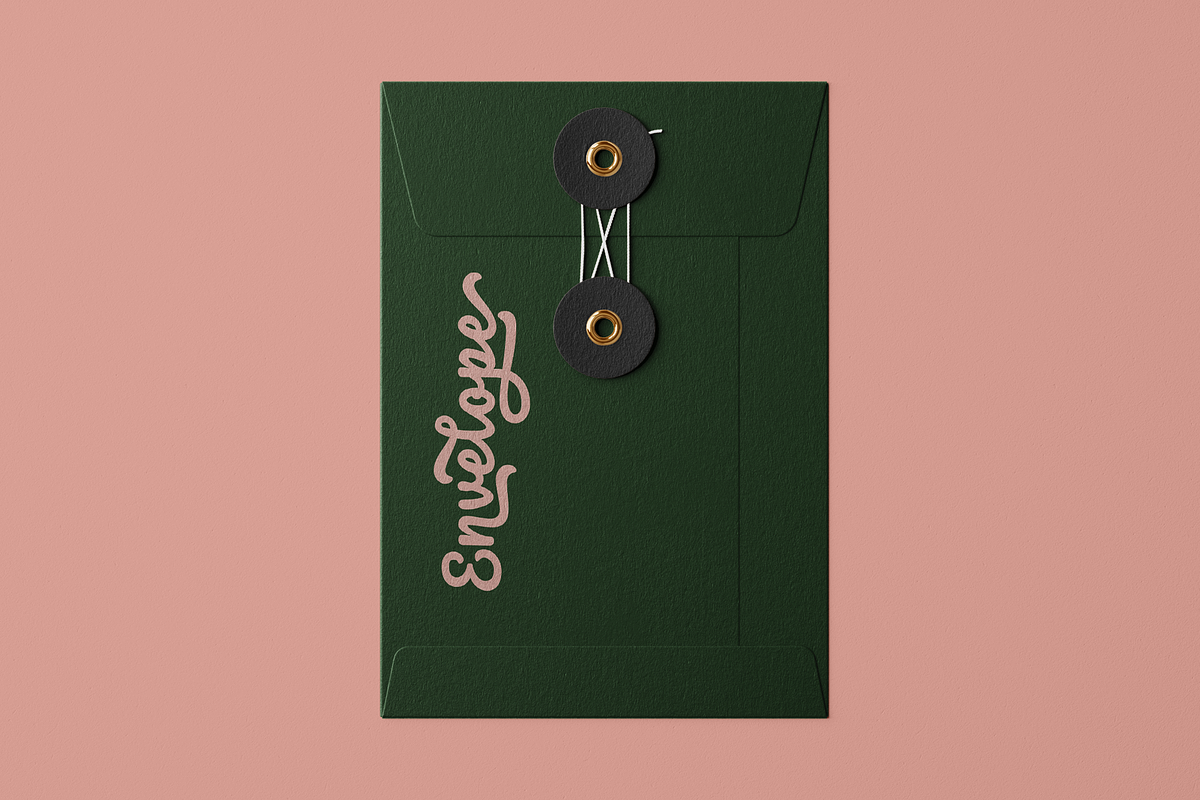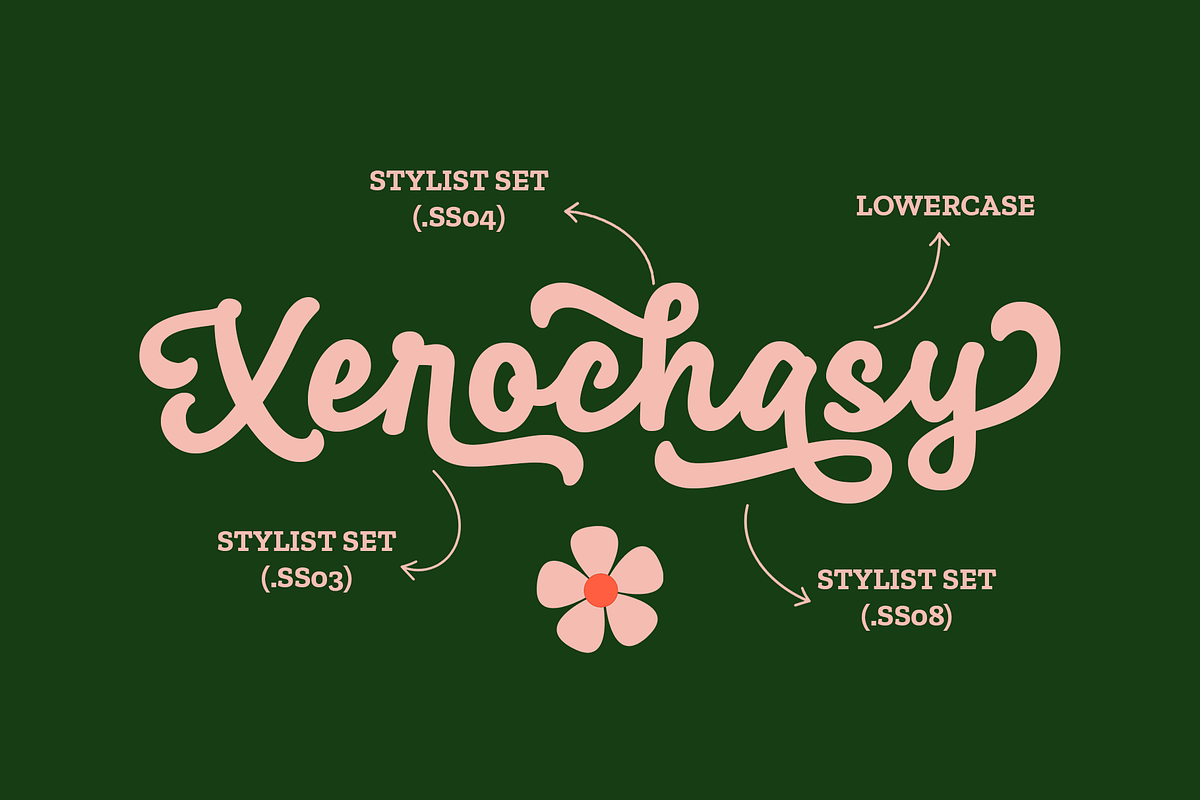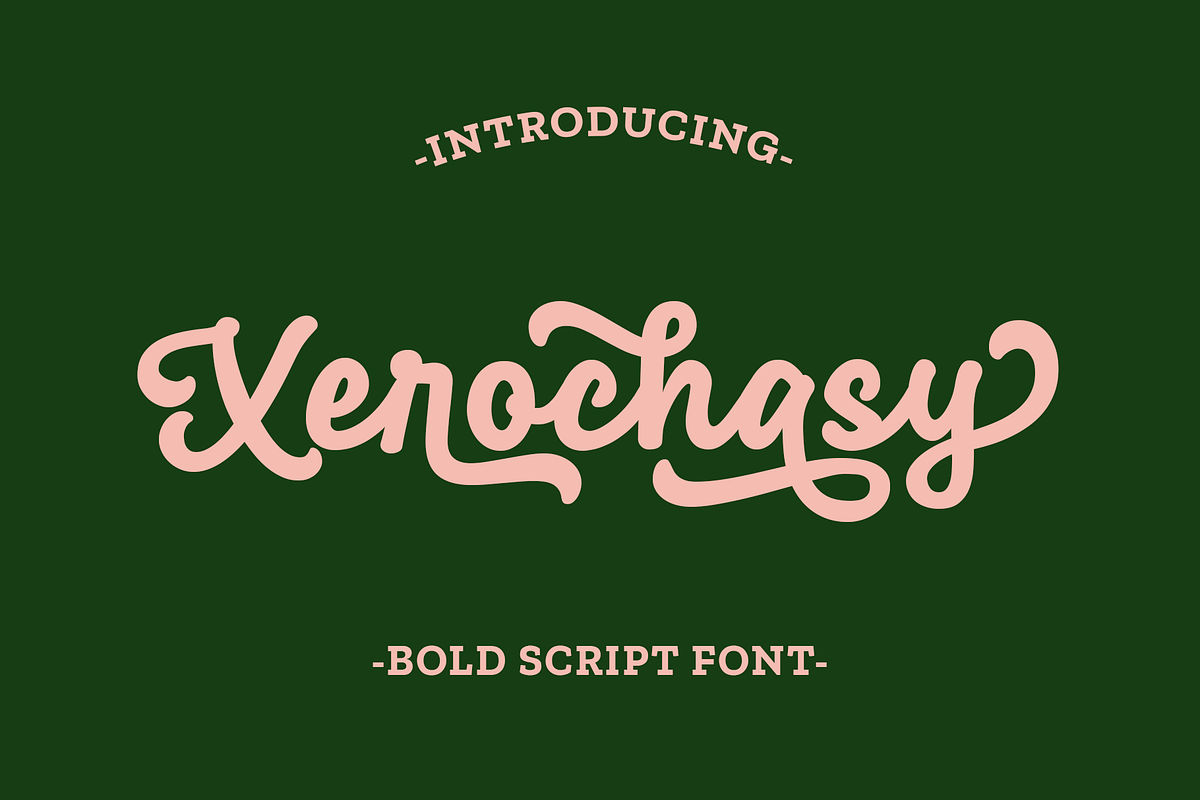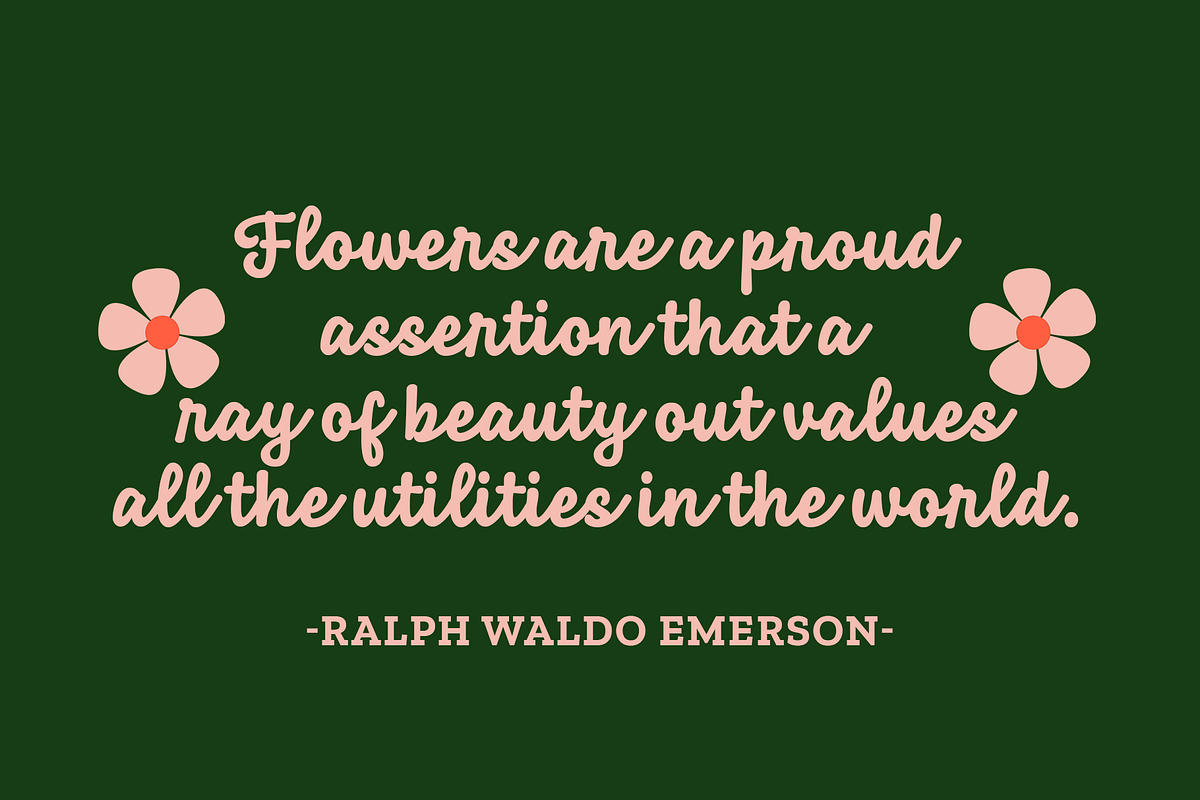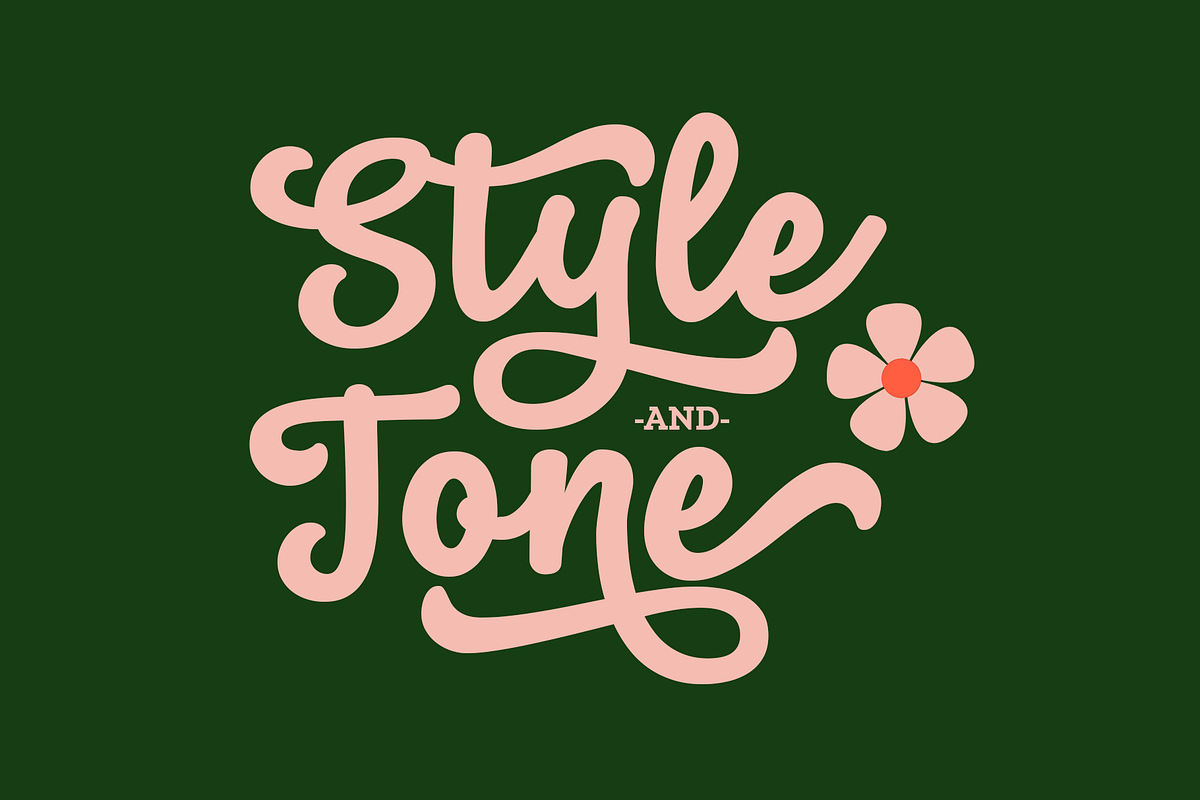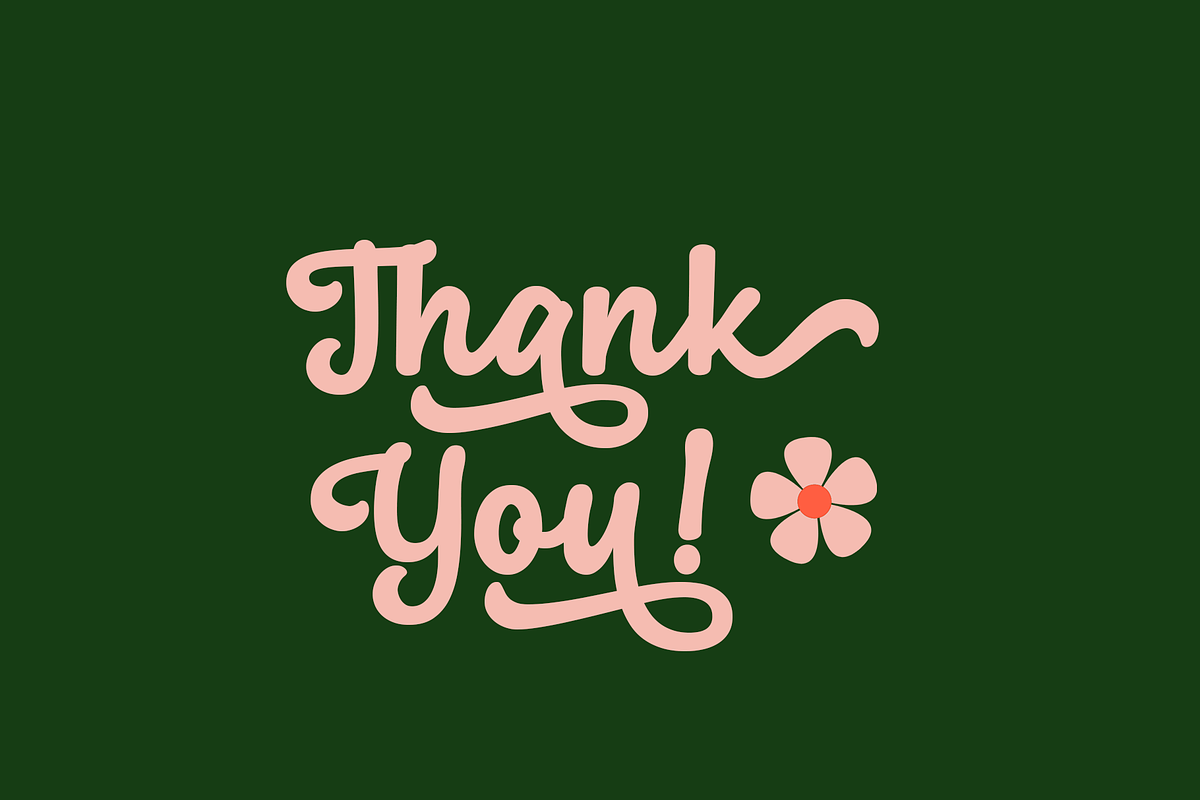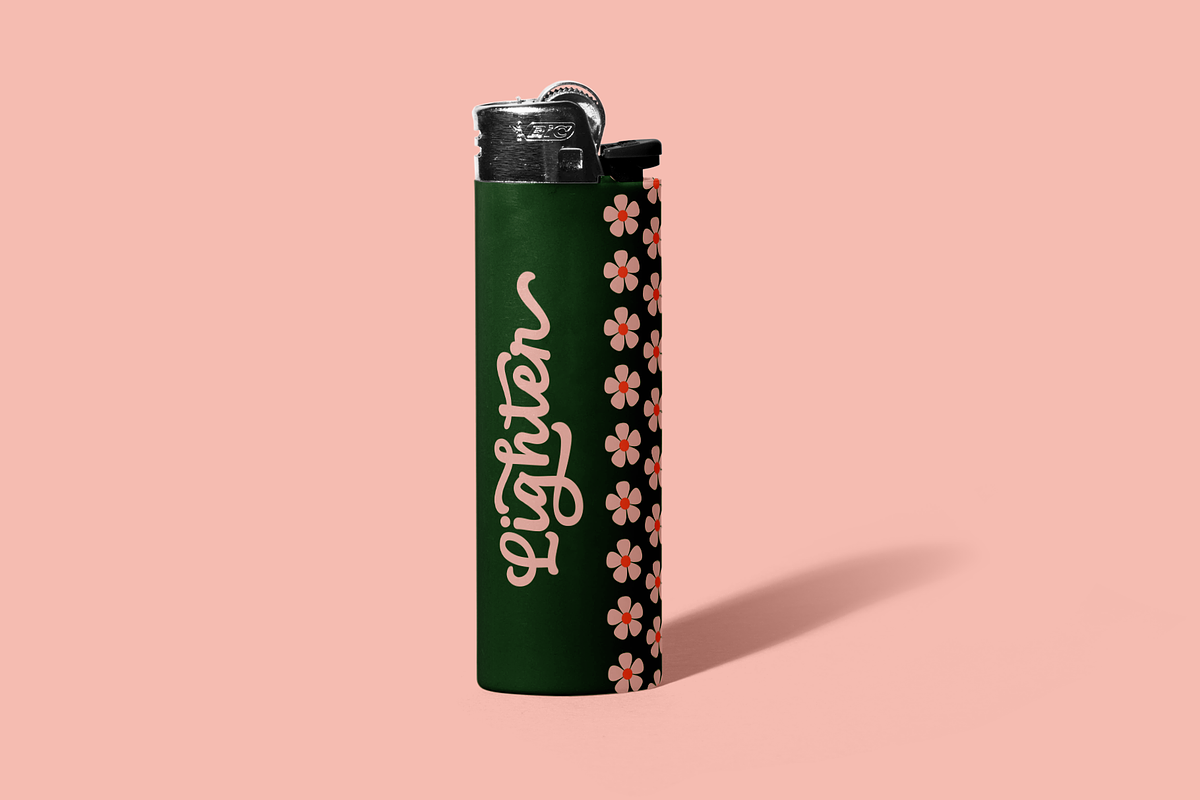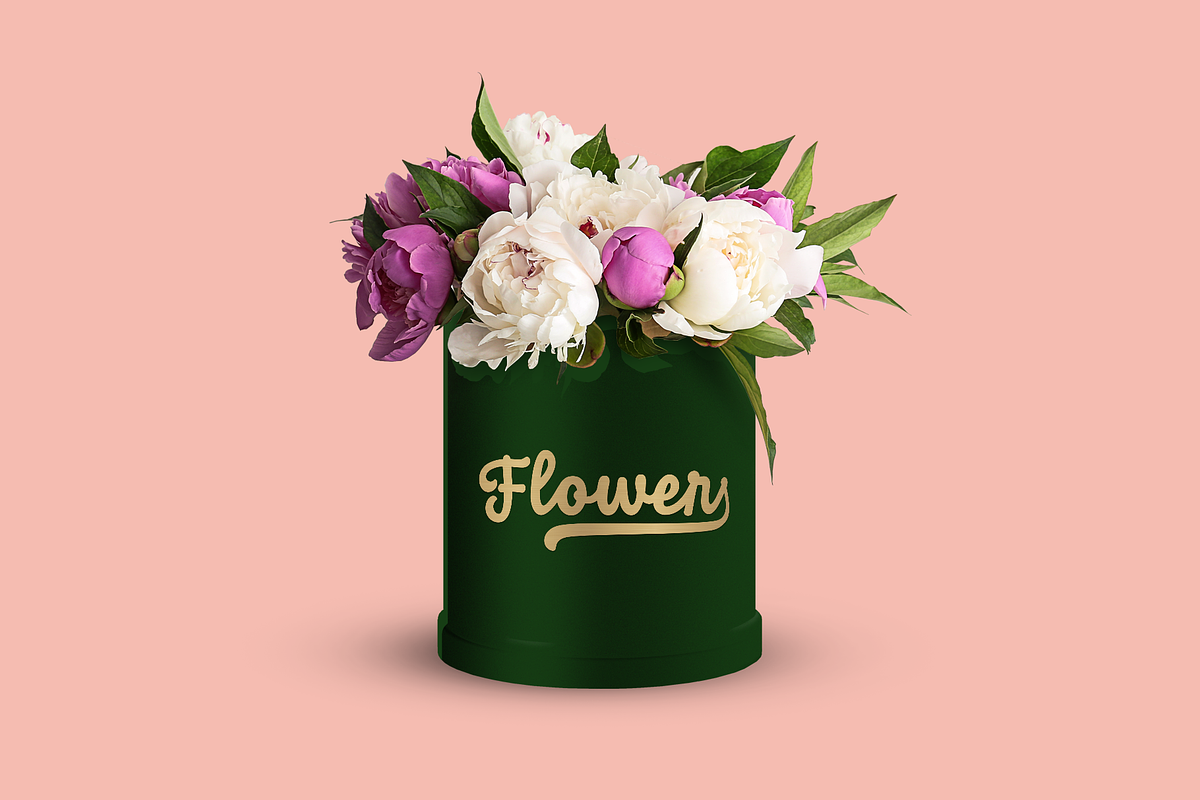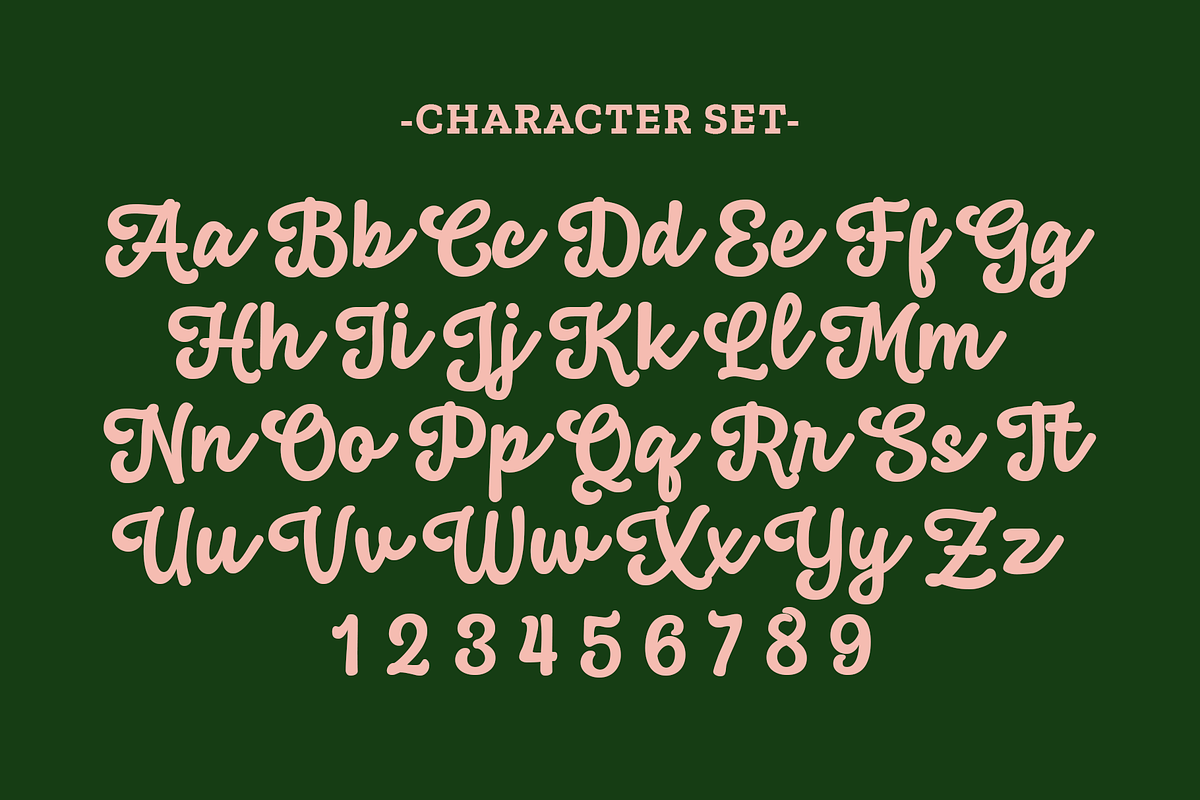
Xerochasy - a Bold Script Font
Xerochasy is a bold script with classic touch and very readable at glance. Really perfect for you who needs a typeface for especially logotype, apparel, invitation, branding, sticker, social media, packaging, advertising etc.